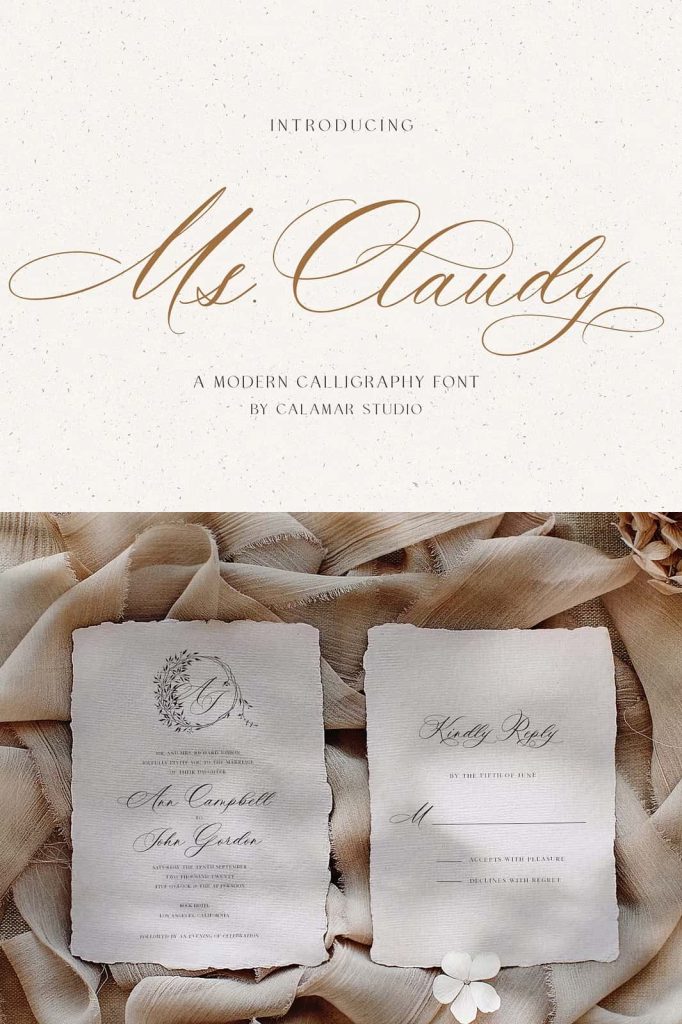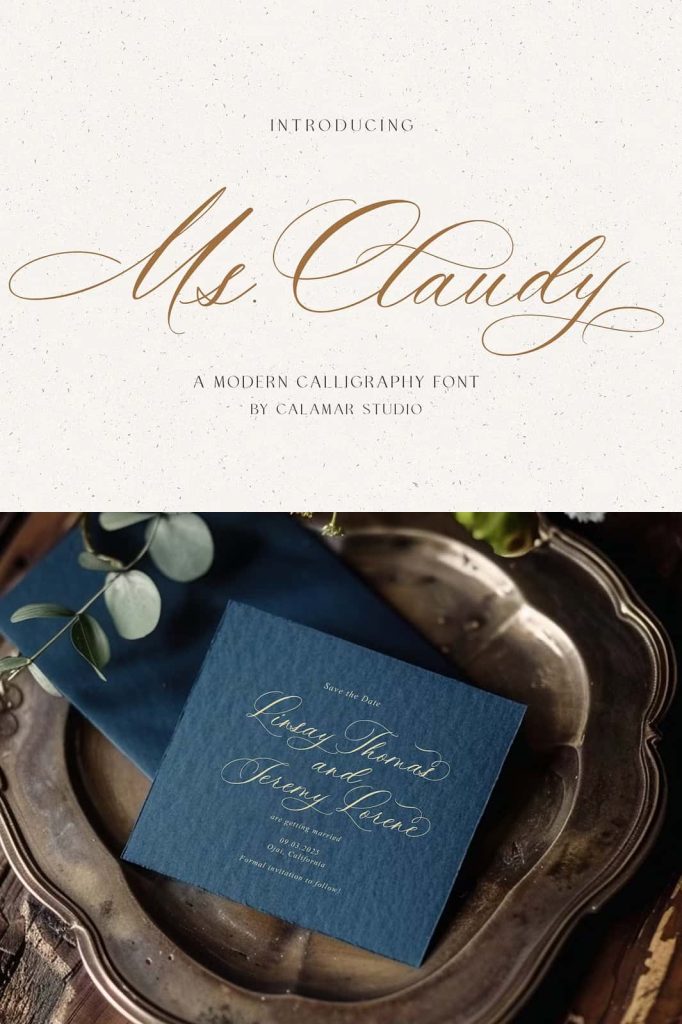
Ms Claudy Calligraphy Font: Modern Elegance for Stylish Designs
Ms Claudy calligraphy font introduces a refined and modern approach to script typography. This elegant typeface combines graceful strokes with contemporary design sensibilities, making it an excellent choice for designers who want to create sophisticated and stylish visuals. It transforms simple text into expressive compositions that feel polished, delicate, and visually engaging.
Designed with attention to detail, Ms Claudy captures the essence of modern calligraphy while maintaining excellent readability. Its smooth curves and balanced proportions allow it to perform beautifully across various design applications. Whether used for formal events or branding projects, this font adds a touch of elegance that enhances the overall presentation.
Modern Calligraphy with Elegant Flow
Ms Claudy features a flowing calligraphic style that creates a natural rhythm throughout the text. Each letter connects seamlessly, forming a continuous movement that improves both readability and visual appeal. This smooth flow allows designers to build cohesive and harmonious compositions.
The modern interpretation of calligraphy ensures that the font feels current while still retaining its classic charm. It balances tradition and innovation, making it suitable for a wide range of creative projects.
Create Graceful and Harmonious Typography
The consistent flow of Ms Claudy helps guide the viewer’s eye across the design. It enhances readability while maintaining a refined and elegant appearance. Designers can use this feature to create layouts that feel both structured and expressive.
This makes the font ideal for headlines, invitations, and decorative text elements.
Elegant Design for Sophisticated Projects
Ms Claudy focuses on elegance through carefully crafted letterforms. The smooth curves and subtle variations in stroke weight create a soft and refined look. These details add depth and character without overwhelming the design.
The font’s sophisticated style makes it perfect for projects that require a high level of visual quality. It communicates professionalism and attention to detail, helping your designs stand out.
Enhance Visual Appeal with Refined Details
The delicate features of Ms Claudy allow designers to create typography that feels luxurious and polished. It adds a sense of refinement that elevates the overall design.
This makes it a valuable tool for projects that aim to convey elegance and style.
Perfect for Wedding Invitations and Event Design
Ms Claudy performs exceptionally well in wedding and event-related projects. Its romantic and graceful style enhances invitations, save-the-date cards, and other stationery. The font helps create a sense of celebration and intimacy, making each design feel special.
Its elegant appearance adds a personal touch that resonates with audiences. It allows designers to communicate emotion and meaning through typography.
Create Memorable and Meaningful Designs
Using Ms Claudy, designers can craft invitations and event materials that feel unique and heartfelt. The calligraphic style adds warmth and authenticity, making each piece more engaging.
This helps create lasting impressions for important occasions.
Ideal for Feminine and Lifestyle Branding
Ms Claudy adapts seamlessly to feminine and lifestyle branding. Its soft and elegant style makes it suitable for beauty, fashion, and personal brands. The font helps communicate a sense of sophistication and creativity.
Its versatility allows designers to use it across various branding elements, including logos, packaging, and social media content.
Build a Strong and Elegant Brand Identity
By incorporating Ms Claudy into your branding, you can create a cohesive and recognizable visual identity. The font’s distinctive style ensures that your designs remain consistent and memorable.
This strengthens brand presence and enhances audience engagement.
Versatile Across Digital and Print Media
Ms Claudy performs well across both digital and print platforms. Its clear structure ensures readability, while its elegant design maintains visual interest. Whether used on websites, printed invitations, or promotional materials, the font delivers consistent results.
This versatility makes it a reliable choice for designers working across different mediums. It supports a wide range of creative applications without compromising quality.
Maintain Consistency and Professional Quality
The cohesive design of Ms Claudy helps unify different elements within your projects. It ensures that your typography remains consistent, enhancing the overall visual experience.
This reliability allows designers to focus on creativity while maintaining professional standards.
Why Choose Ms Claudy Calligraphy Font?
Ms Claudy calligraphy font offers a perfect combination of modern elegance, versatility, and expressive design. Its flowing script, refined details, and sophisticated style make it an excellent choice for designers who want to create stylish and impactful typography.
By choosing Ms Claudy, you gain a typeface that enhances both visual appeal and emotional connection. It allows you to produce designs that feel elegant, memorable, and engaging. For wedding invitations, branding, and creative projects, Ms Claudy delivers consistent and inspiring results.